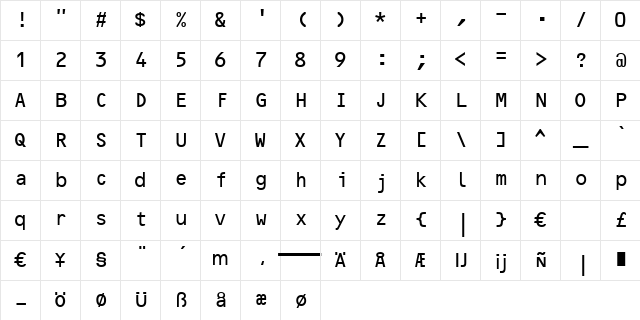
OCR-B 10 BT Regular
Design Context for OCR-B 10 BT
OCR-B 10 BT is a composed and adaptable typeface that performs quietly and consistently across a wide range of design contexts.